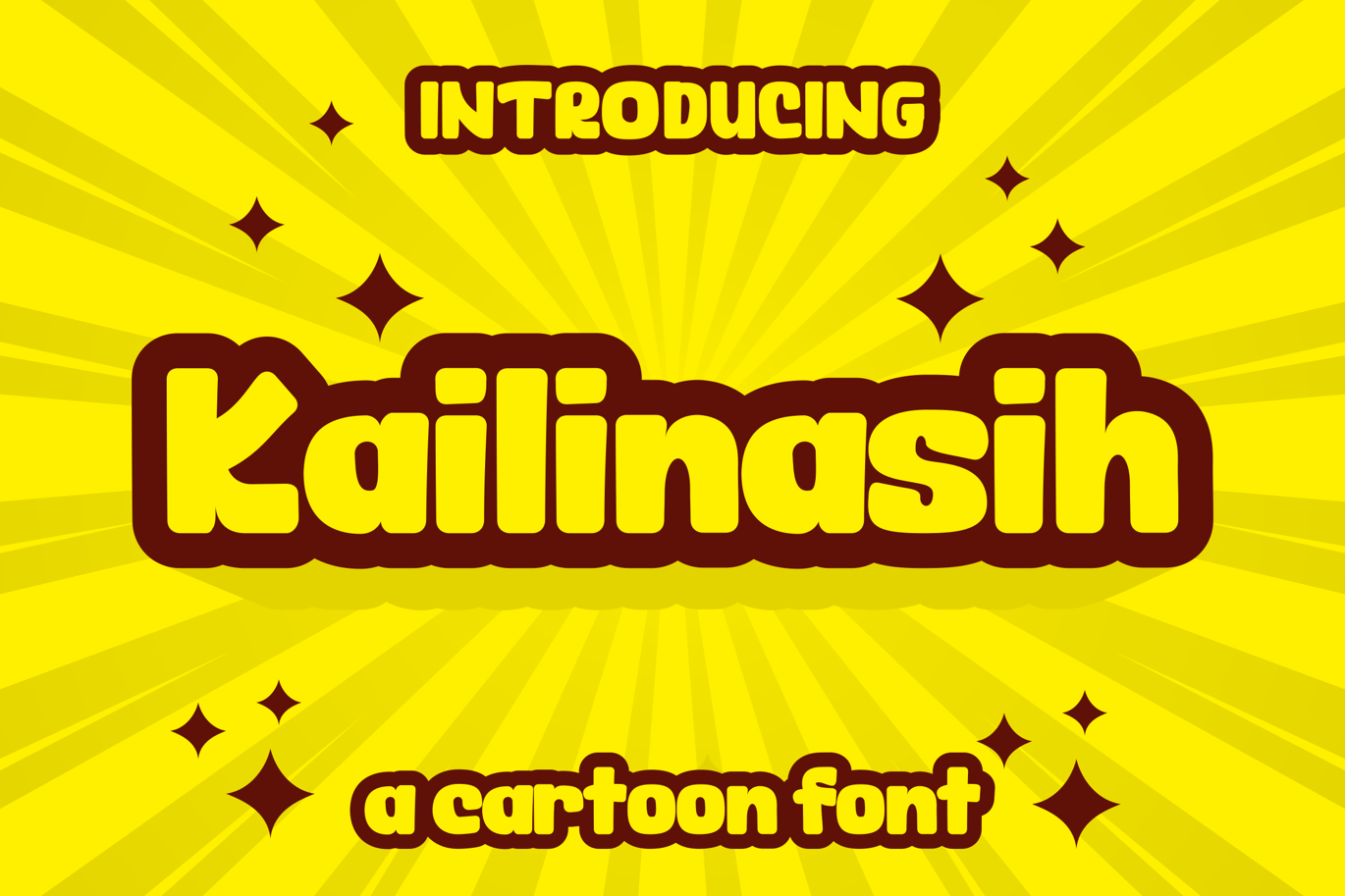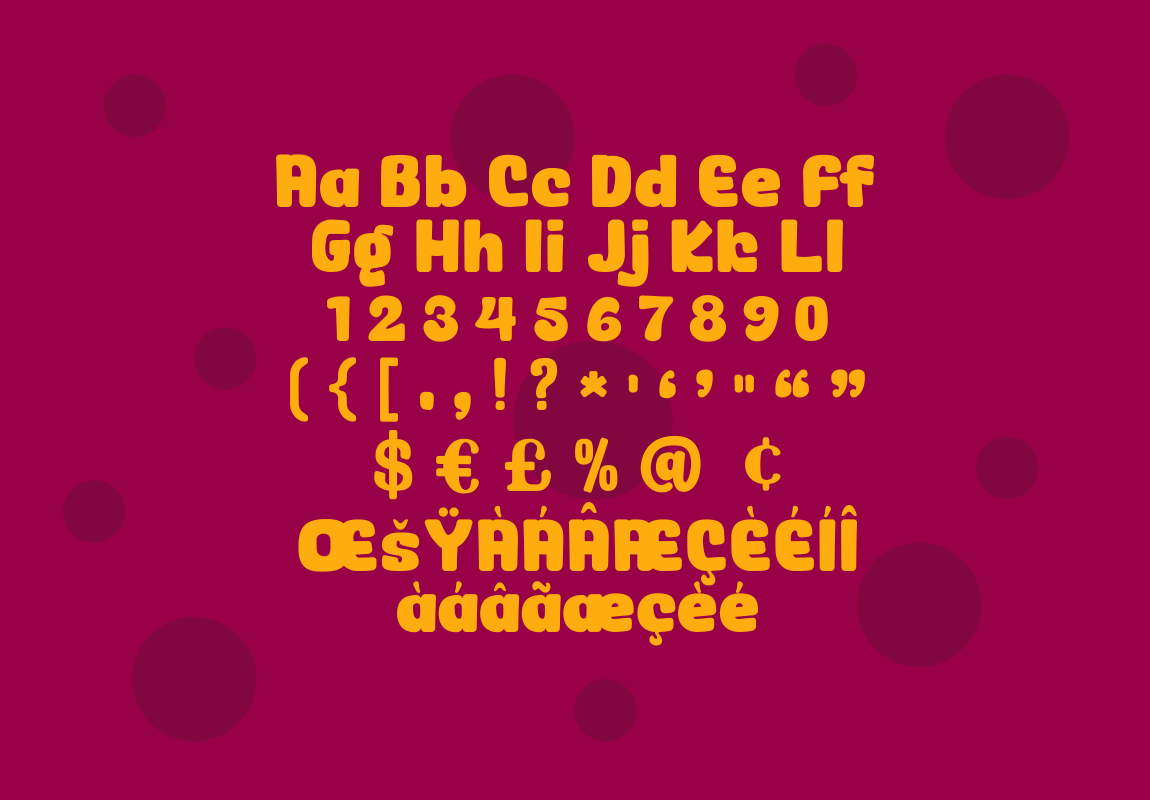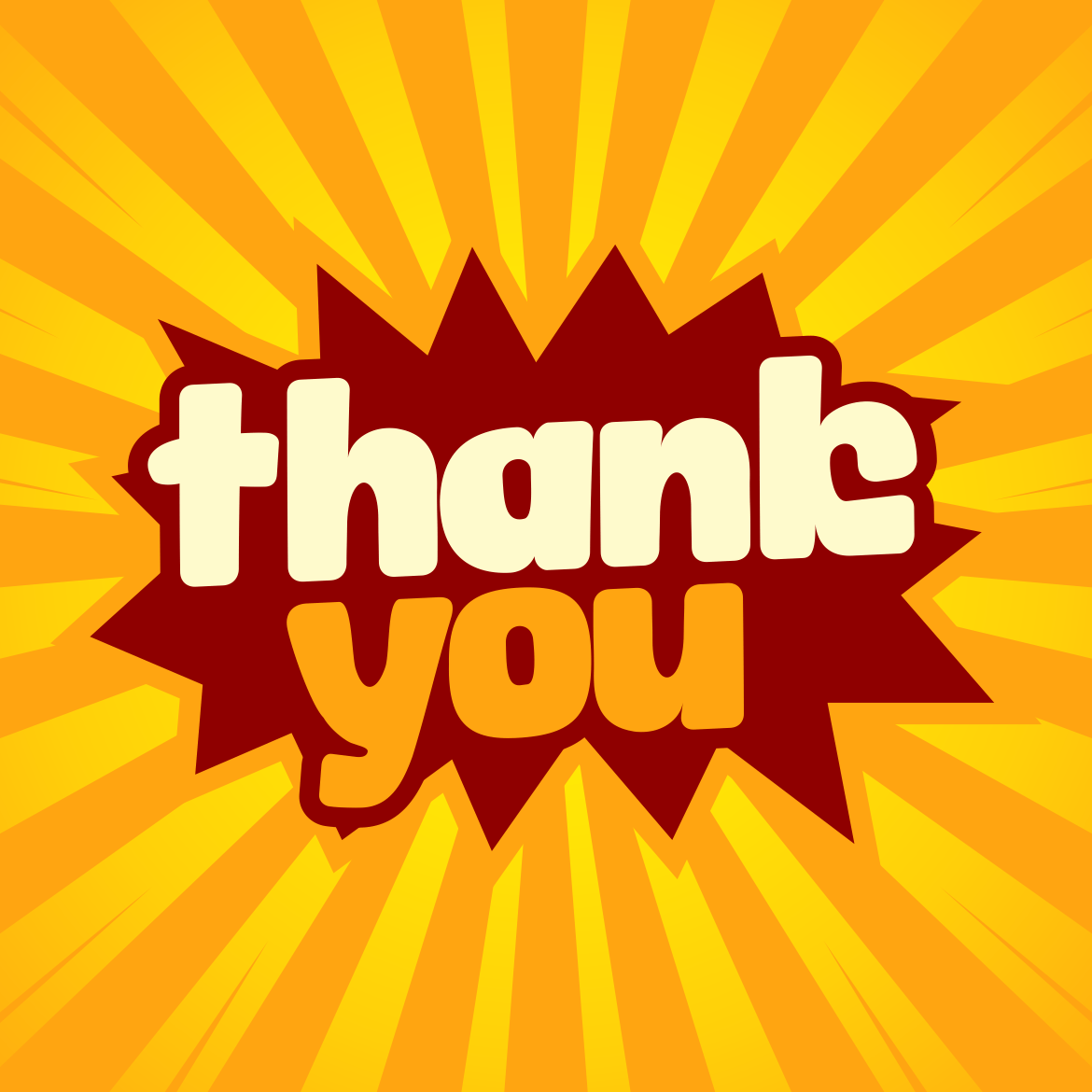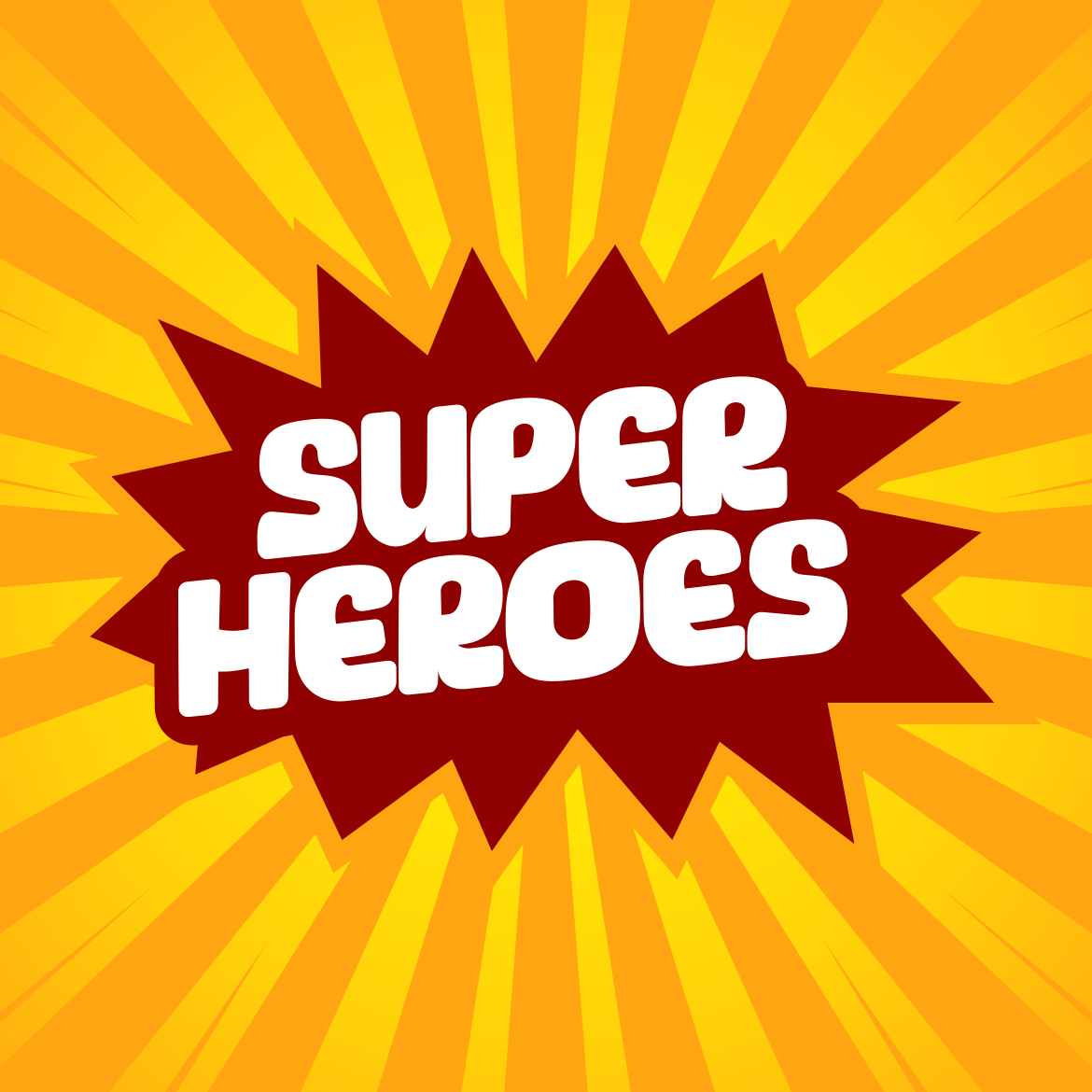
Kailinasih a Cartoon Font
Introducing of our new product the name is Kailinasih a Playful Font, Kailinasih inspired by Playful style with a fun theme very good for kids, cartoon and playful theme design.